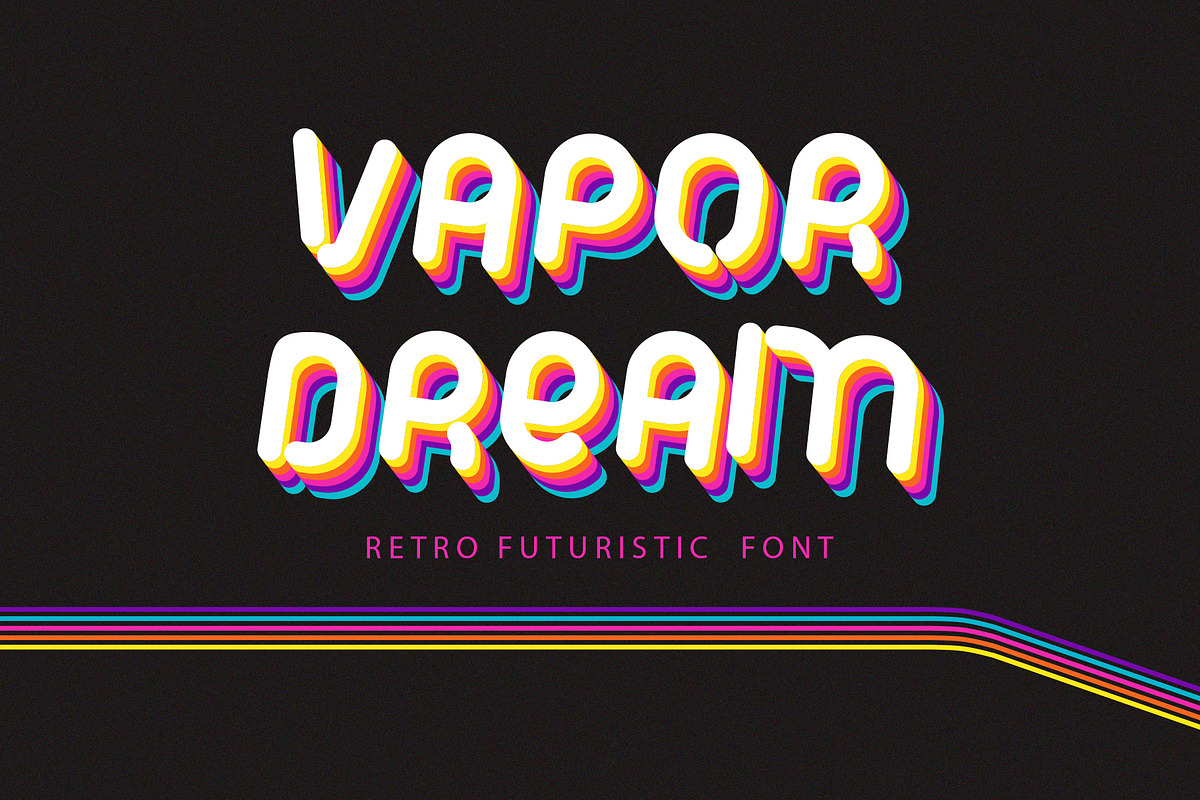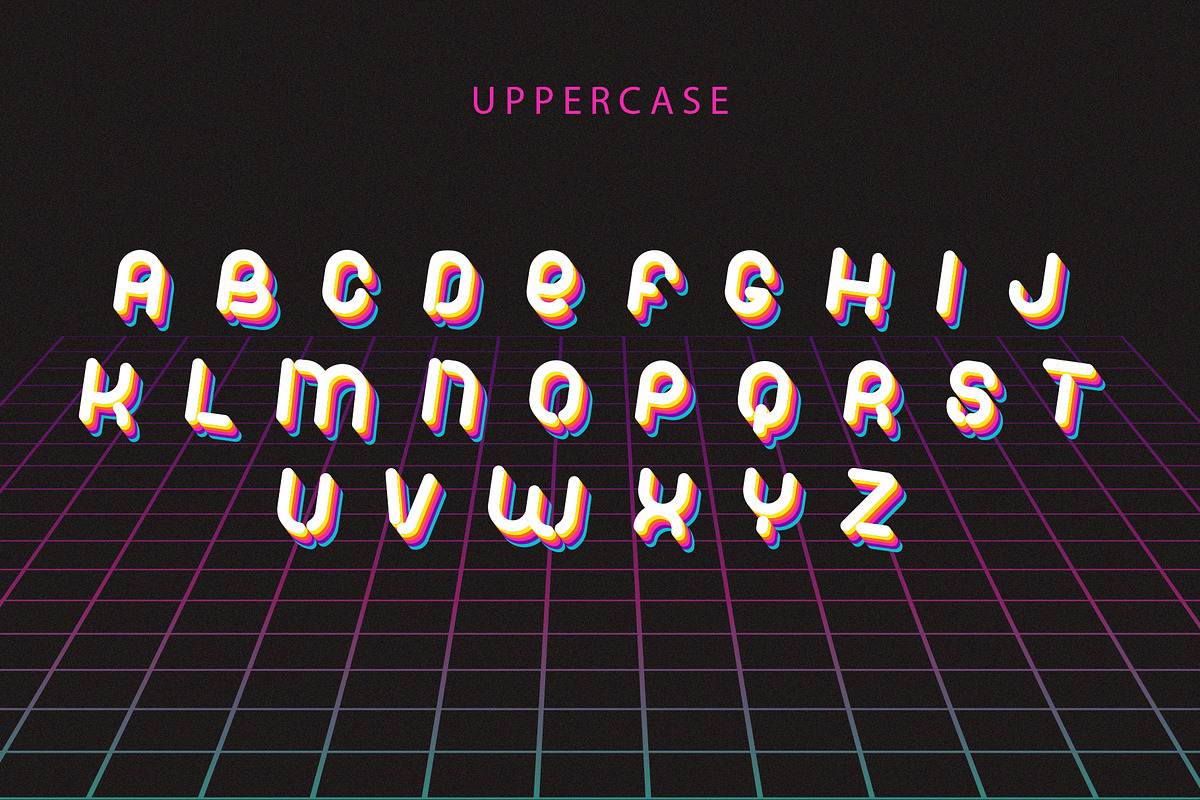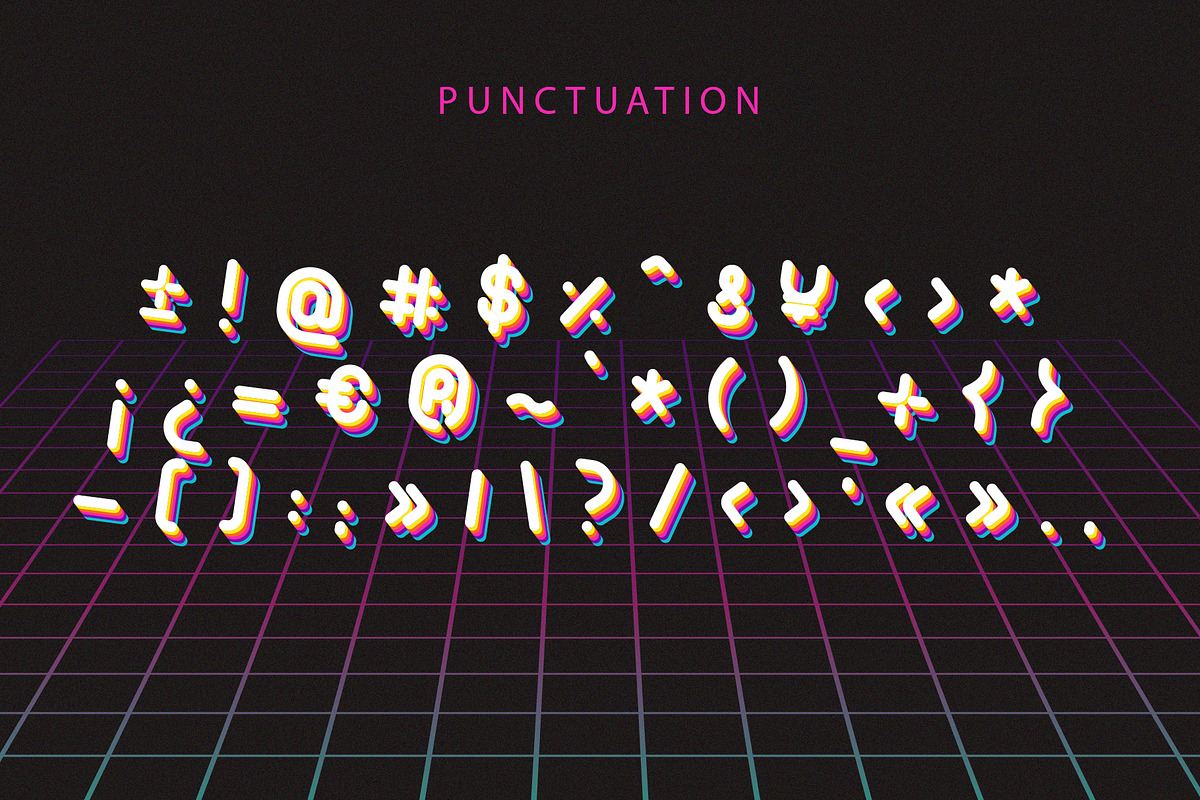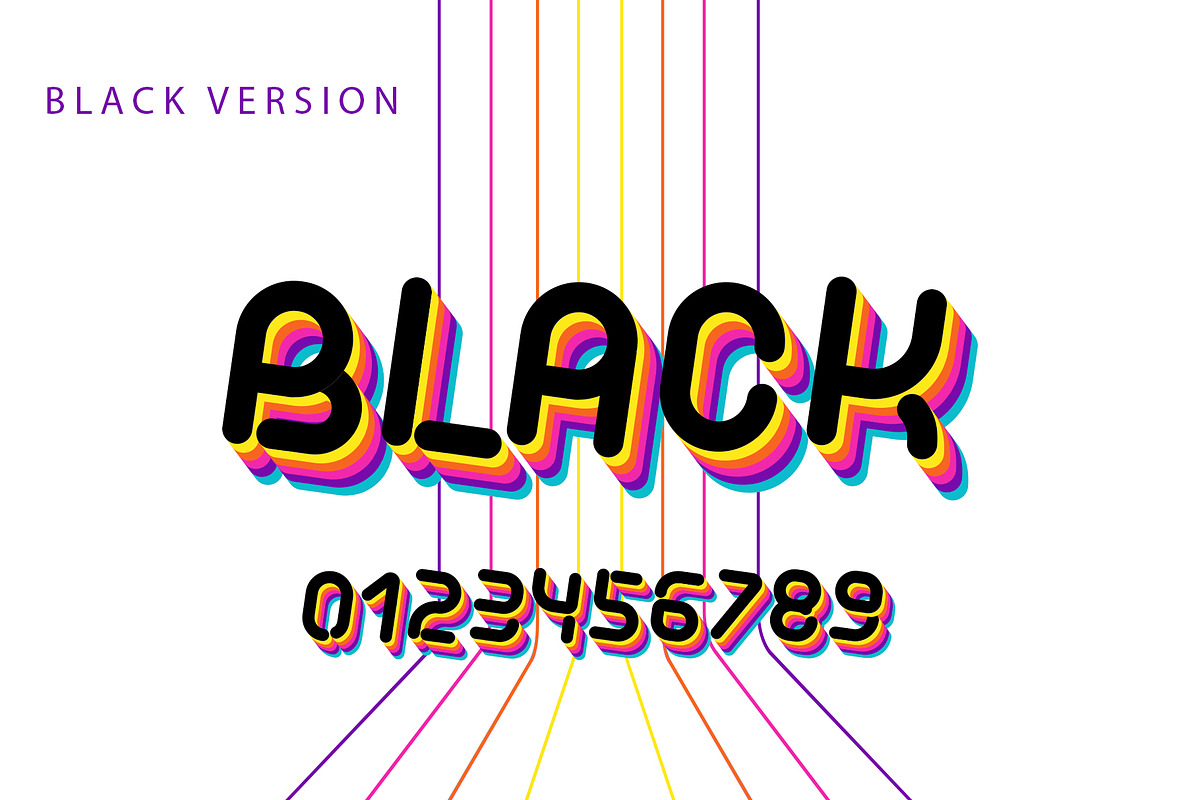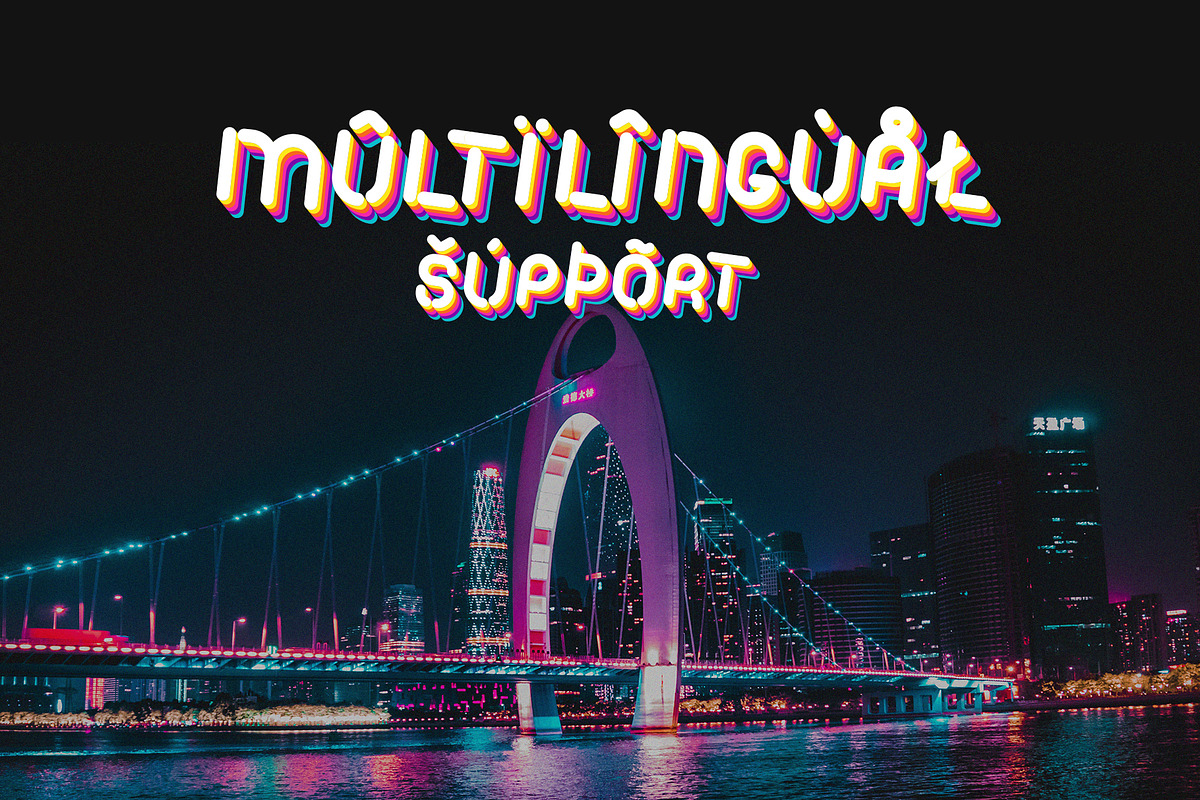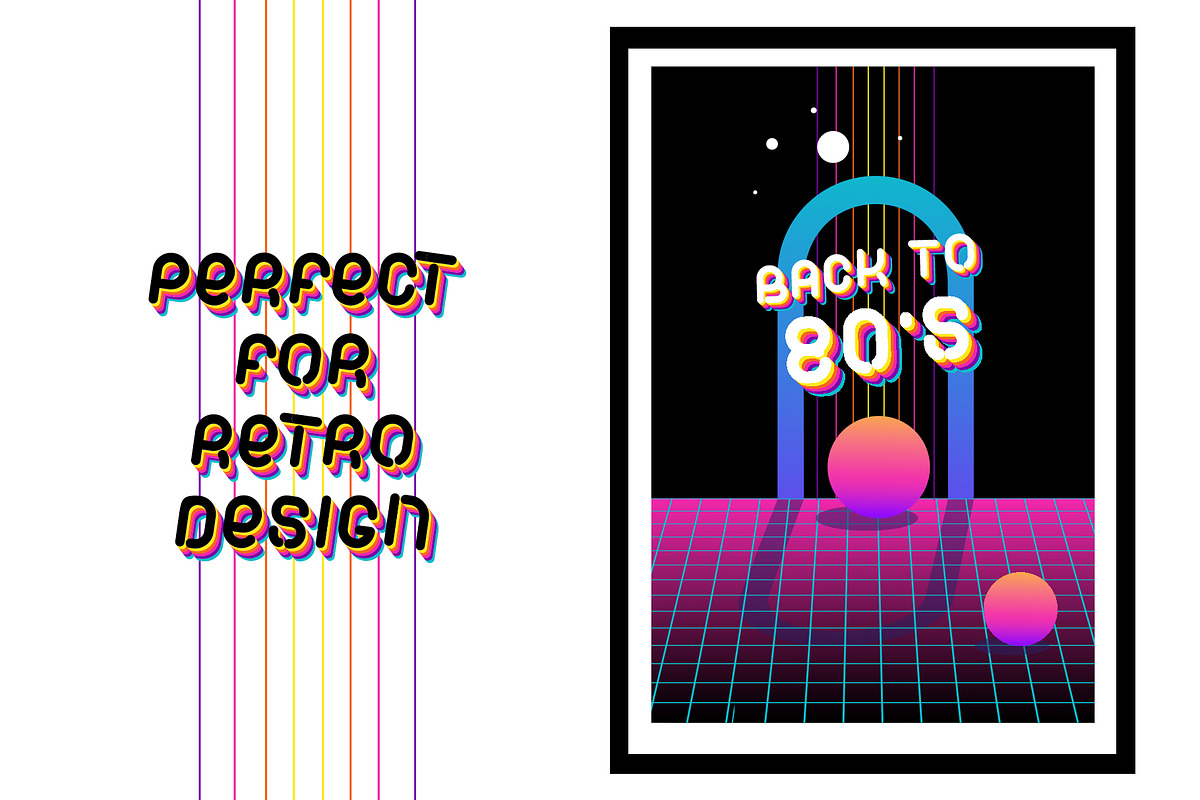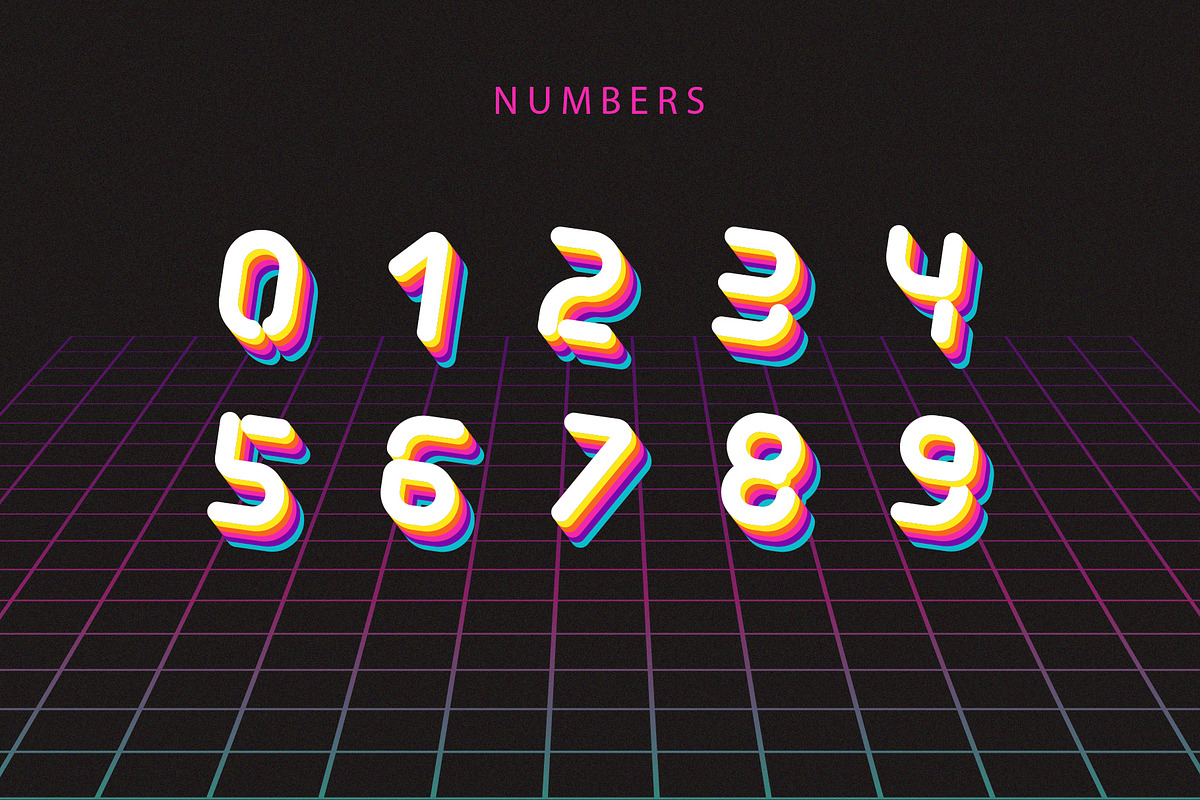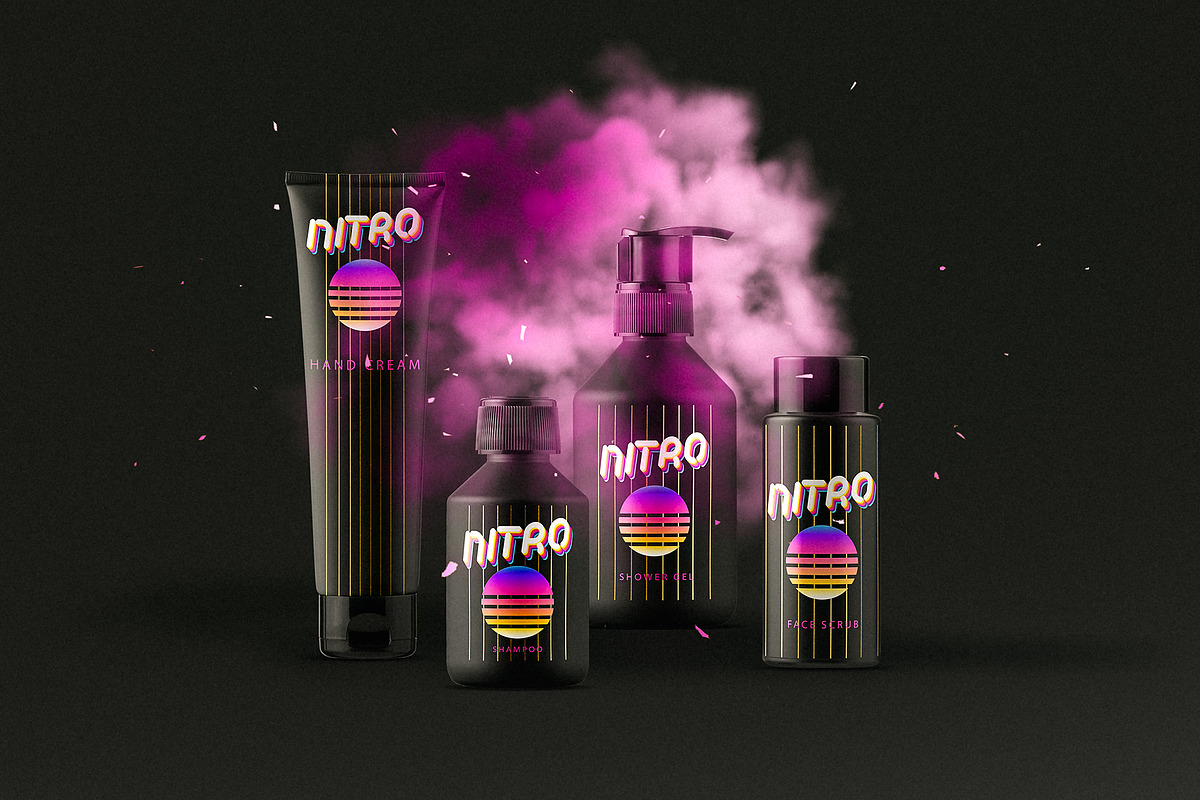
Vapor Dream | Retro Futuristic Font
Vapor Dream font. Inspired by Vaporwave, Synthwave, Retrowave culture and Lo-Fi and futuristic aesthetic with it color lines and multilayered forms.
This font perfect for all kind of design: abstract futuristic collages, posters, book cover, cosmetic packages etc.